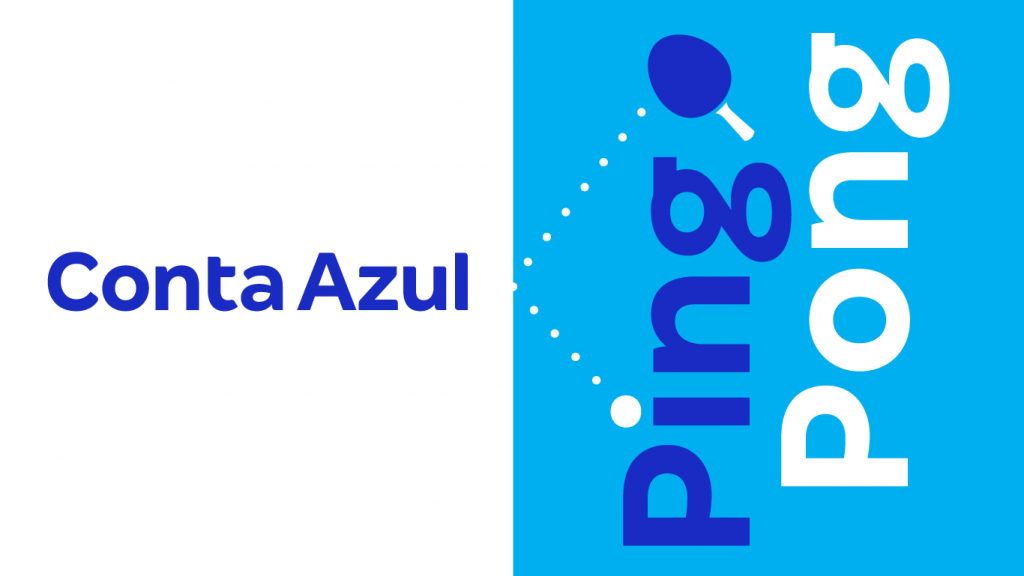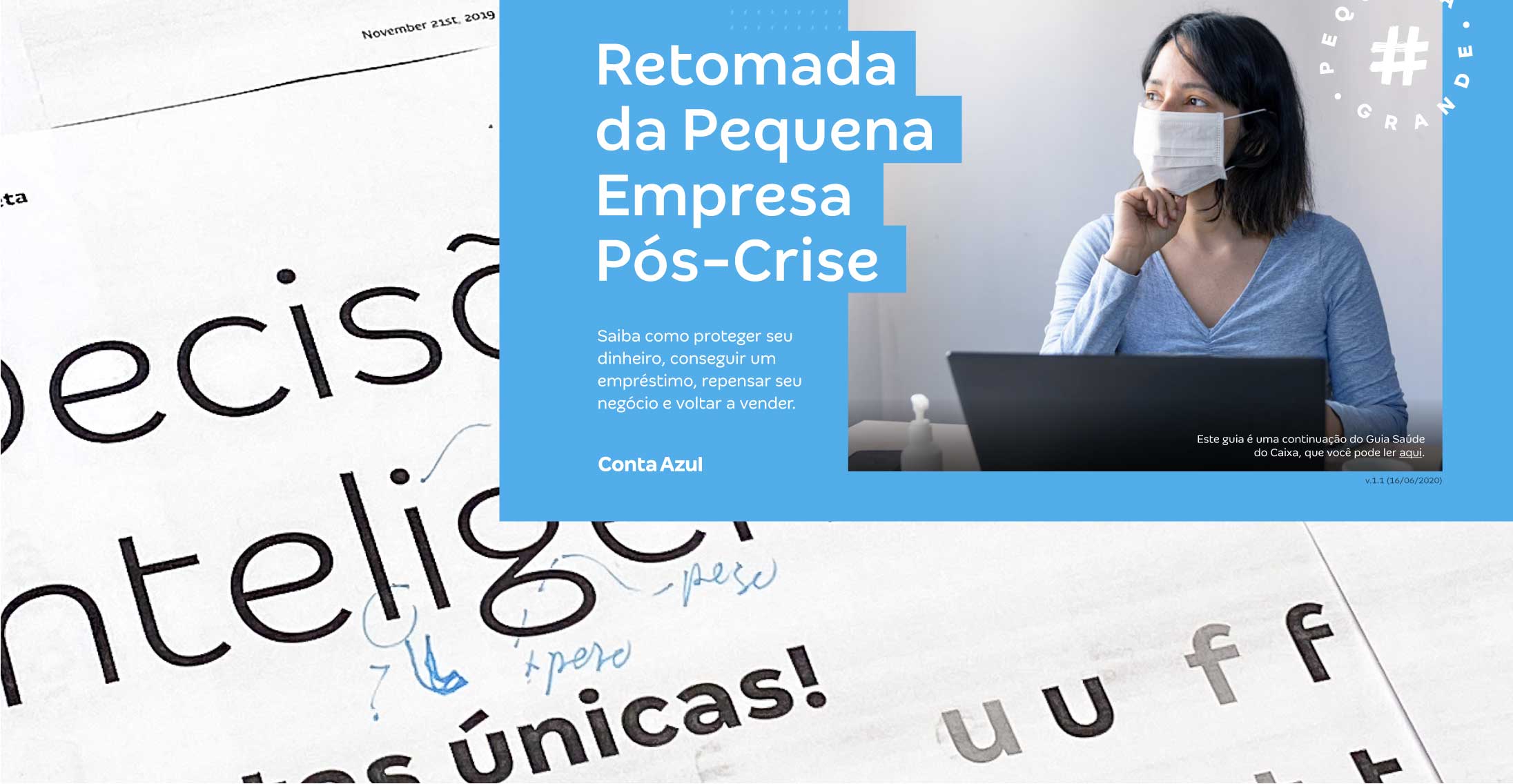
Ping Pong: the typeface (and essence) of Conta Azul
Do you believe that my first job was in an accounting office? At 16, I spent a few weeks in my father’s office, summing stacks of printed invoices manually. It was the motivation necessary to make me look for an internship in my area, quickly.
Twenty years later, who would say, I had the pleasure of working for Conta Azul, one of the fastest-growing technology companies in Brazil, simplifying the accounting management of already 800 thousand companies, including this one.
Invited by the studio Firmorama, we jointly modified the Margem font to create an exclusive version for the new visual universe of Conta Azul.
The emphasis was on increasing brand awareness at all points of contact, maintaining legibility, and having a proprietary look.
For this, the design of the letters’ f’, ‘t’ and ‘u’ has been simplified, while the letter ‘e’ has become softer, slightly more personal. As a striking point, the letter ‘g’ gained a distinct construction. These changes in key letterforms result in a different texture from the original, becoming exclusive to Conta Azul.
“We wanted the typeface to be a highlight of our visual universe. With this challenge, Firmorama brought Fabio to the project. In addition to his flexibility and that of the team, we also had a very quick return on the work that needed to be done. As a final result, we have a very functional, exclusive and cohesive font aligned to our brand strategy.” — Victor Zanini, Design Manager, Conta Azul
The name Ping Pong is a tribute to the gaming tables that have always been present in the Conta Azul office. According to them, a small reminder that the ride can also be fun! And I would add that it comes and goes.